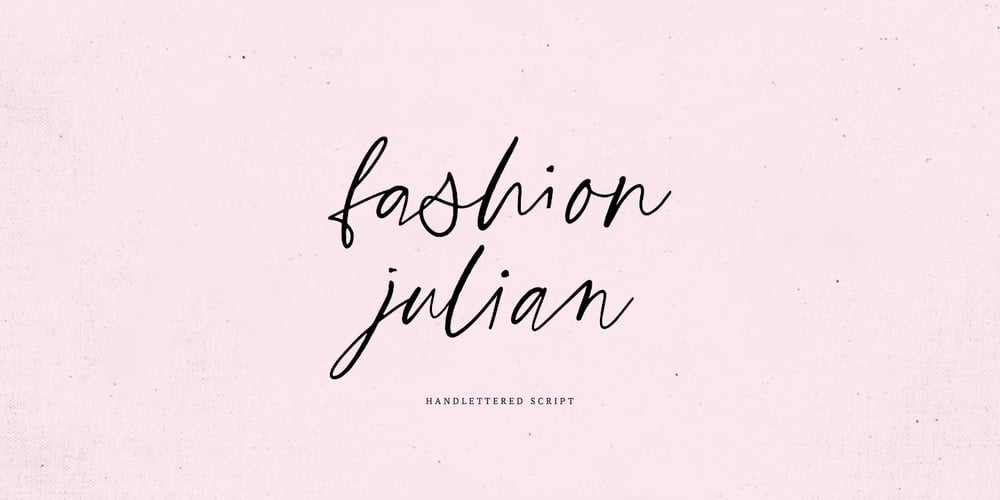
Fashion Julian Font Family was designed by Dmitrii Chirkov and published by Supfonts. Fashion Julian contains 1 styles and family package options. Fashion Julian it is a Calligraphy chick font with exquisite accents. It is perfect for branding, wedding invitations and invitation cards and many moreWhat’s inside:- Fashion Julian Script- Multilingual support- Cricut supportIf you have any questions, please contact me directly or in instagram @supfonts